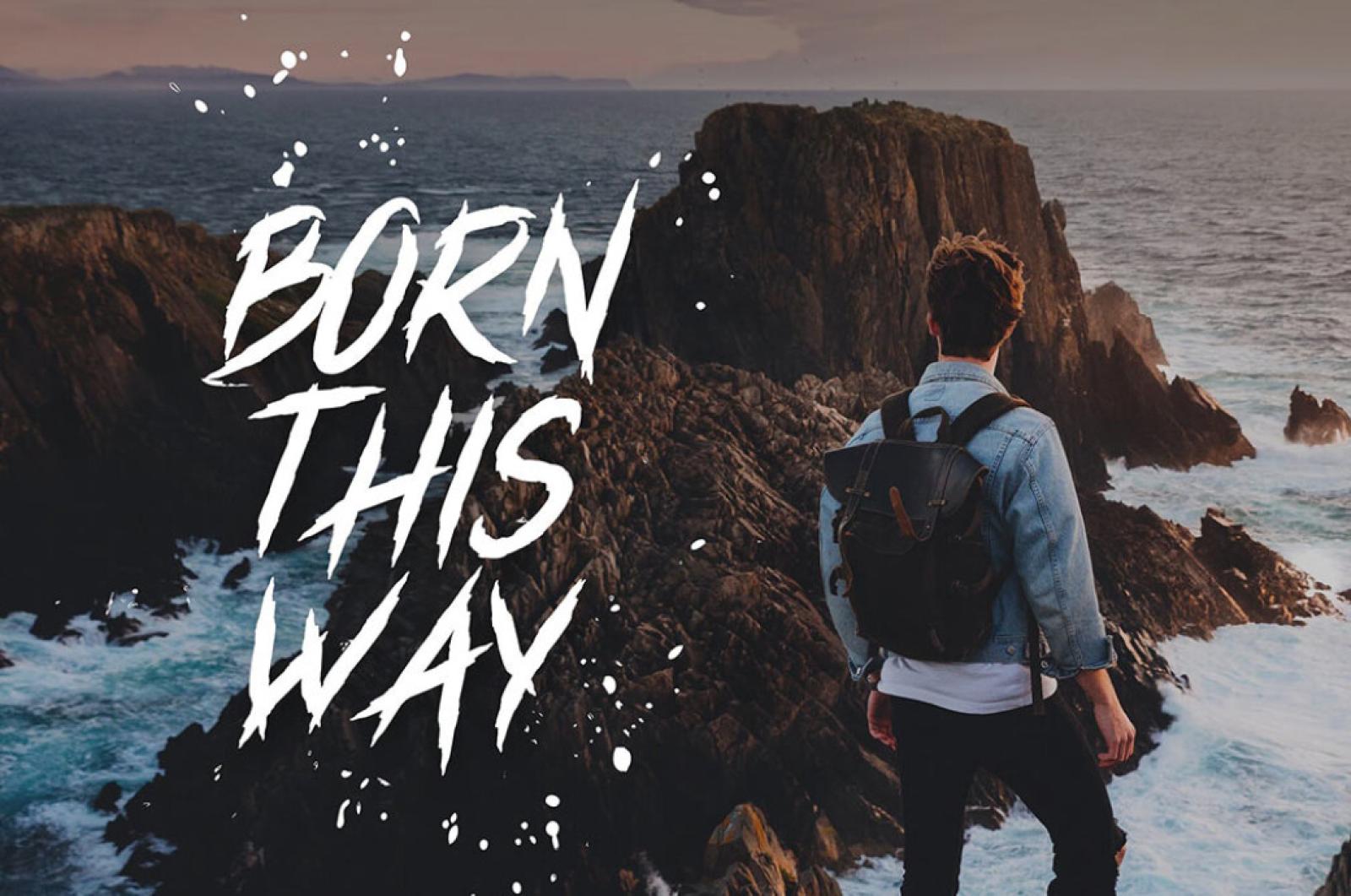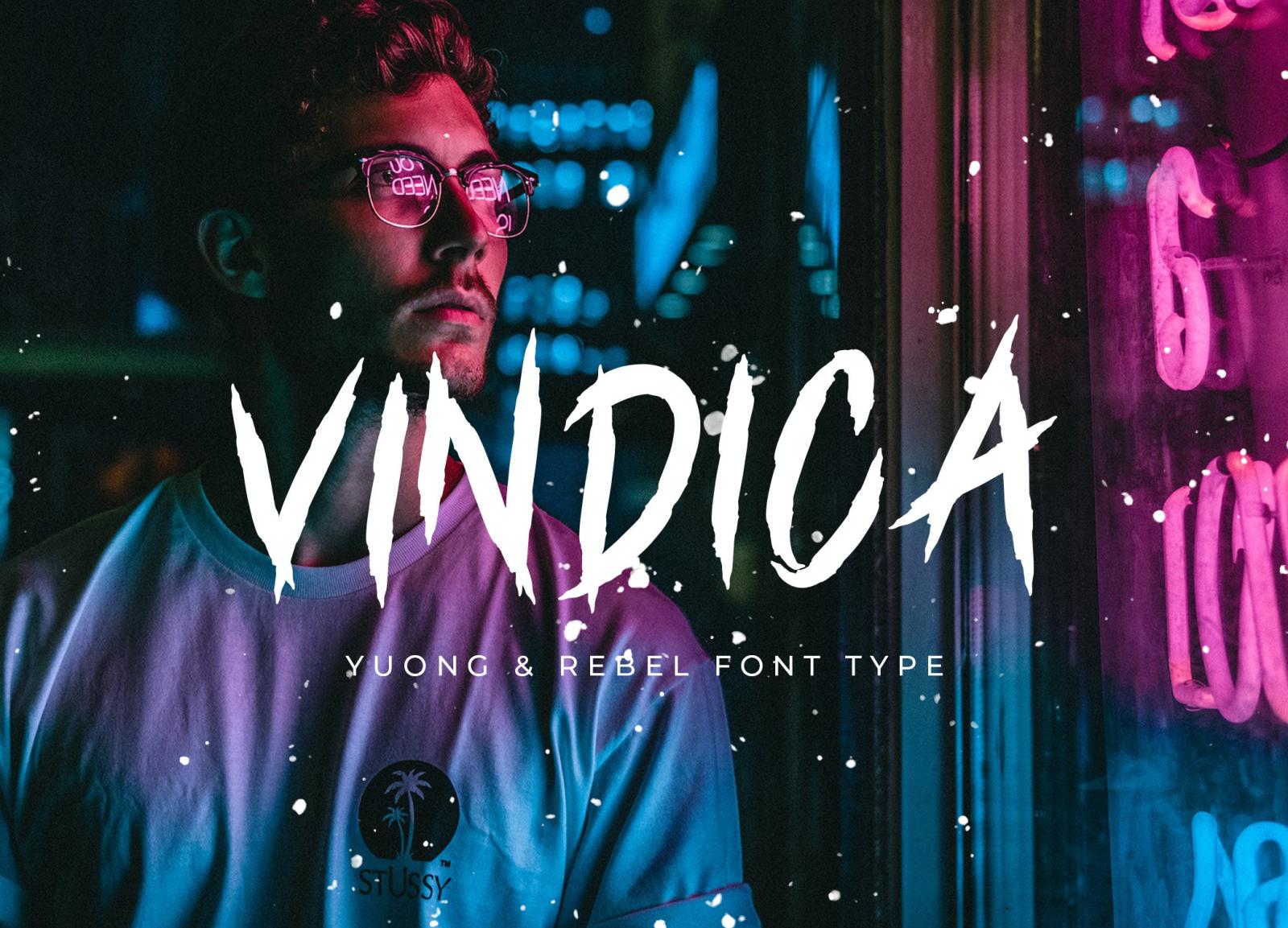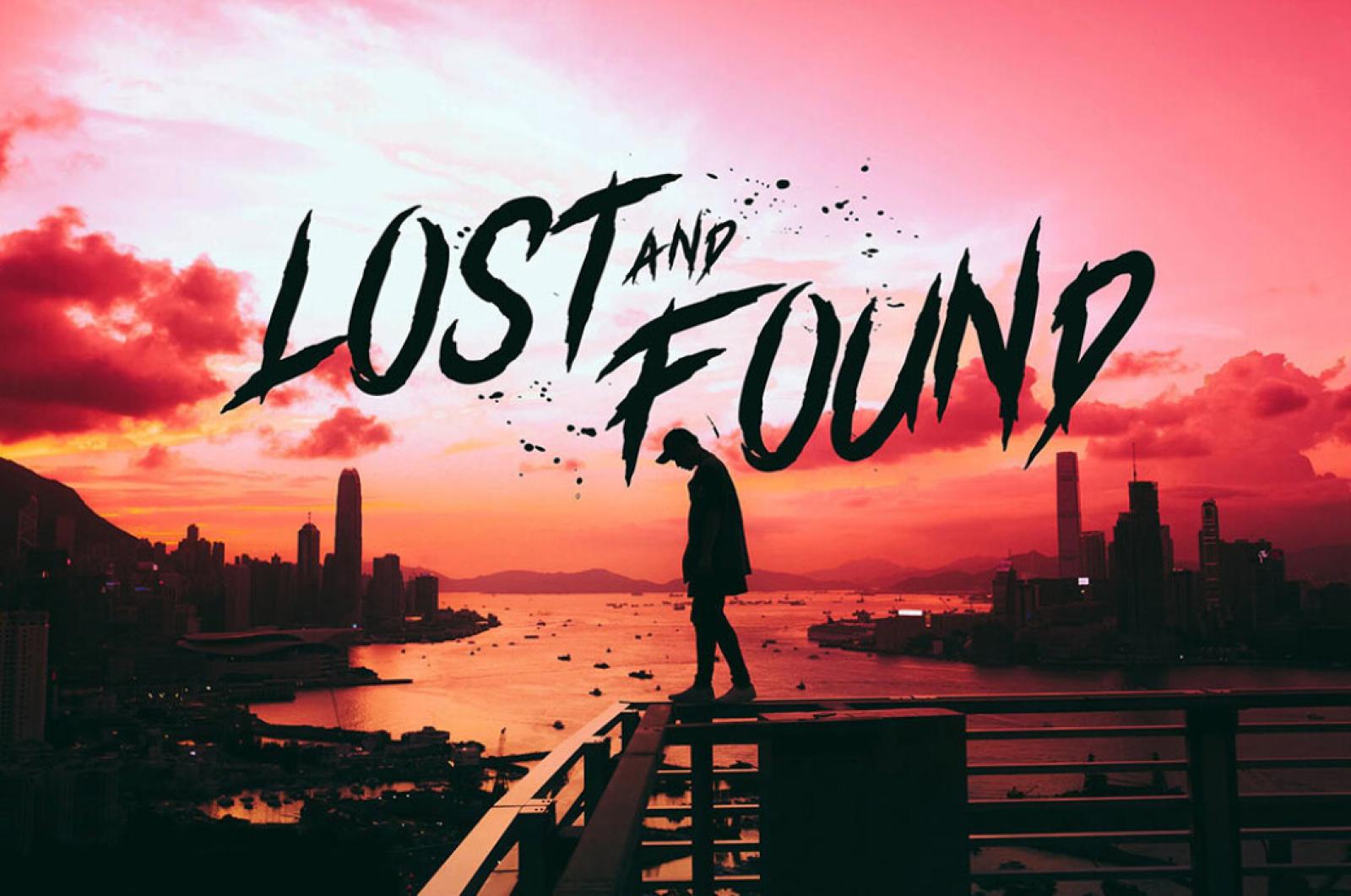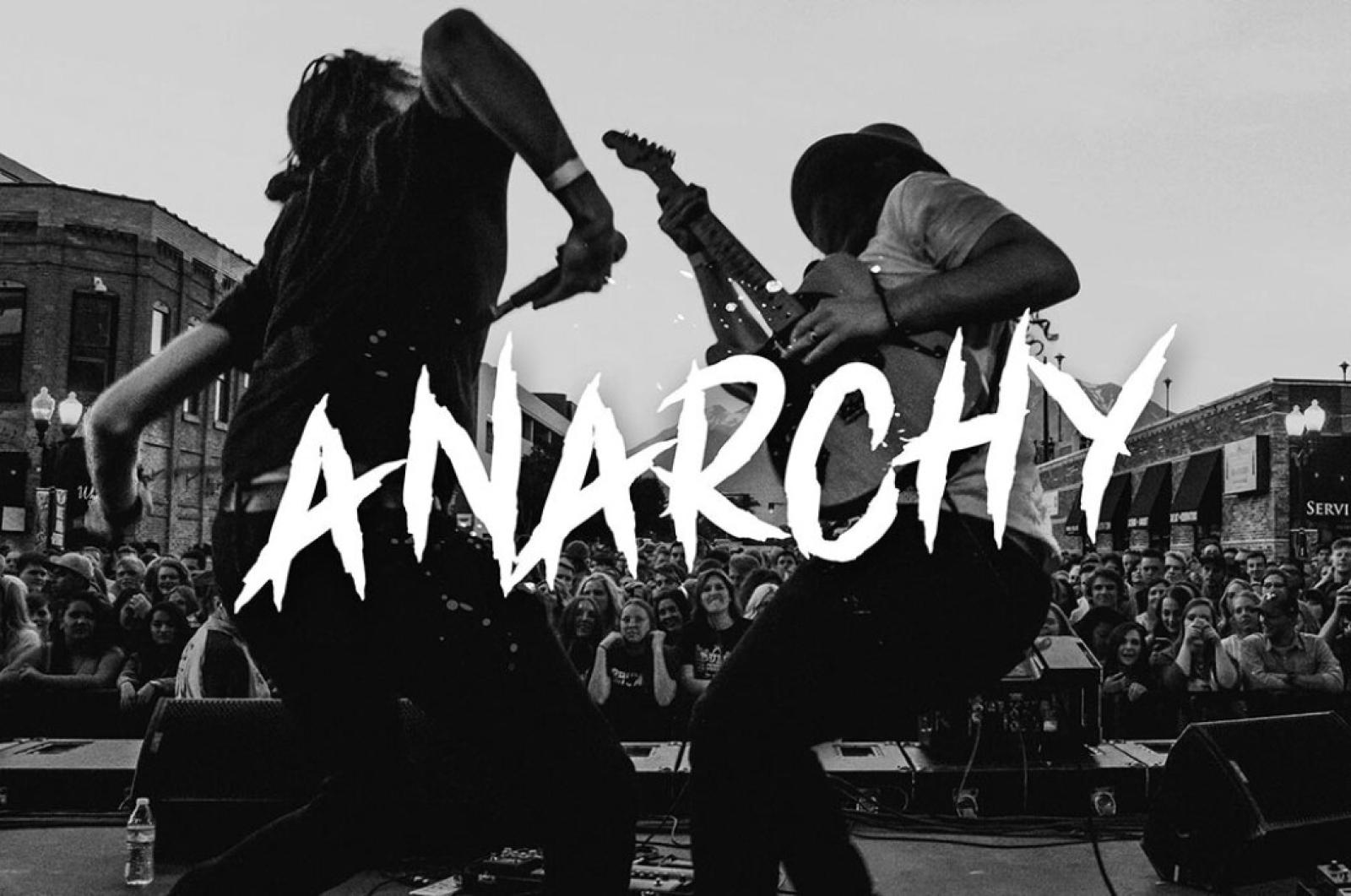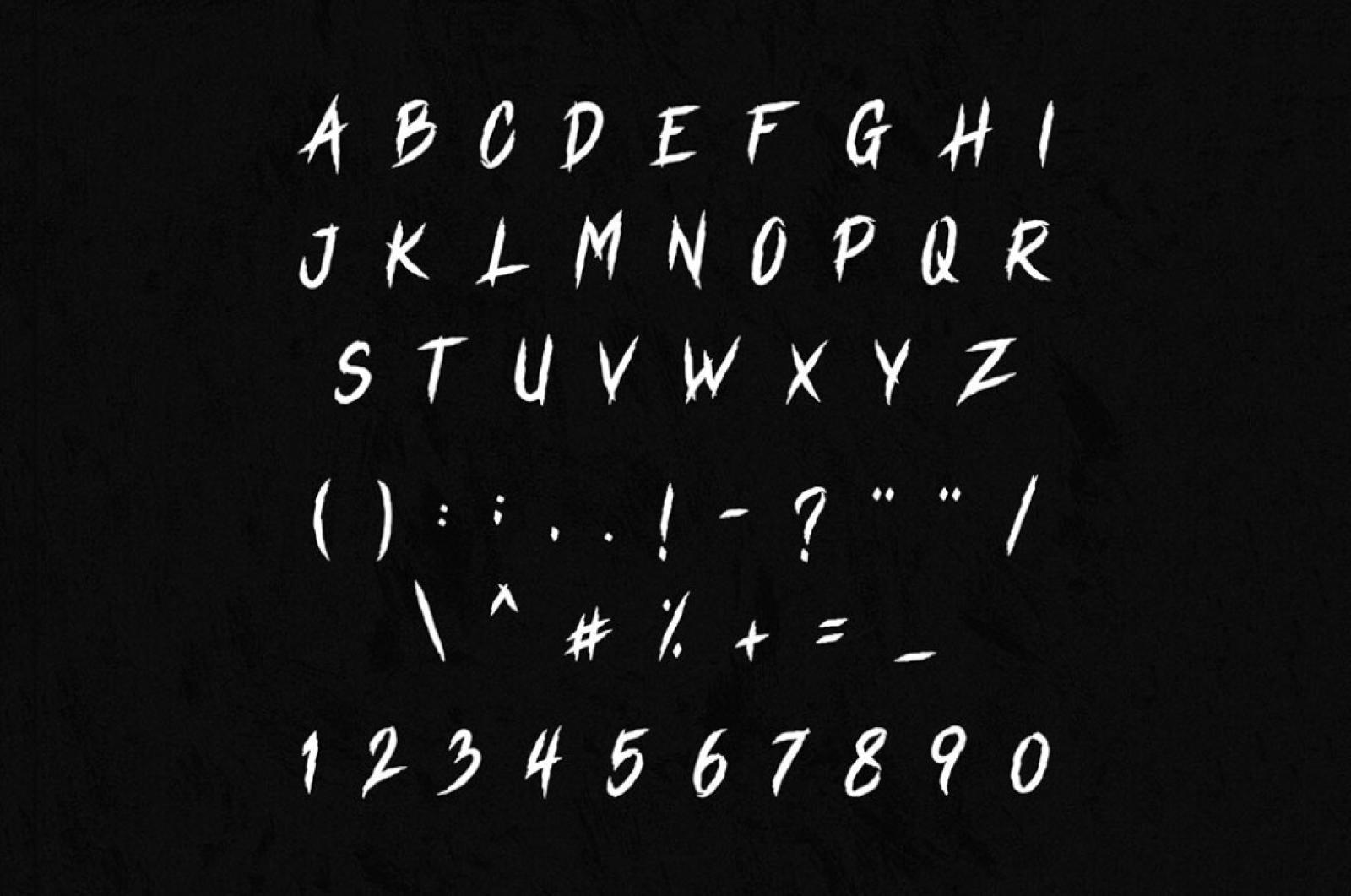
Vindica Rebel Brush Font
This brush font is just like the air playing with your hair so free and dreamy. Every its stroke is a piece of absolute energy, which is able to make any artwork worth an ovation.
Vindica was crafted with absolute love to typography and can match all possible support typefaces and convey the right mood thanks to its expression and tons of glyphs included. Pick it for a hoodie print, posters & cards or to complement your website or app designs and youll surely love the final image!